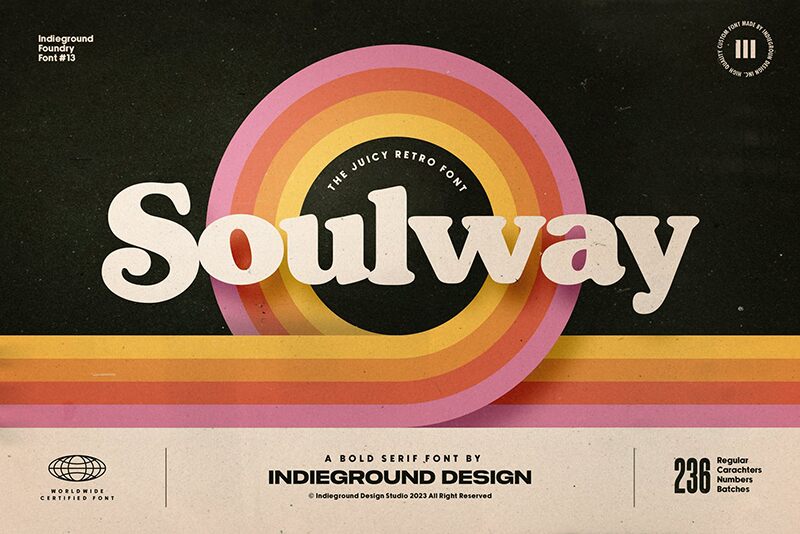
Soulway Demo Shadow
Soulway Shadow font by Indieground Design is a lively, bold display font with a groovy retro look. Its expressive and nostalgic design takes us back to the 70s and extends it further into futuristic realms. This versatile typeface is all about improving that psychedelic vibe for an energetic feel that enhances the overall mood.
Free retro display font Soulway Shadow appears lovely on vintage designs including typographic artworks, marketing ads, posters, book and album covers, t-shirts or apparel designs, magazine titles or cover pages (especially those related to music), along with different printouts. Use it as well online when it comes to logo design projects and others where typography takes center stage.